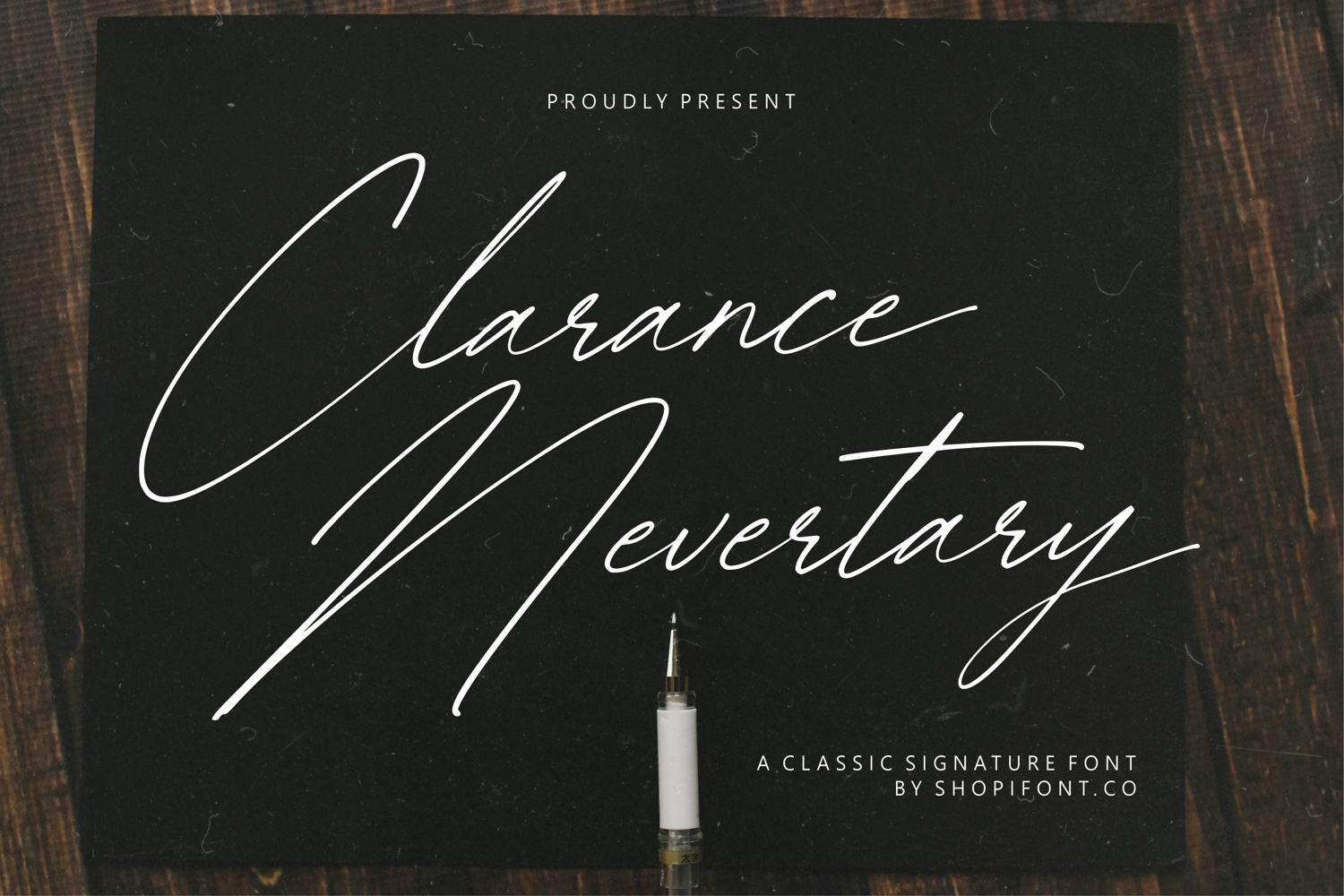
Clarance Nevertary
Proudly Present, Clarance Nevertary
Clarance Nevertary is A Classic Signature Font Perfect for wedding, product packaging, branding project, magazine, social media, or just used to express words above the background on your best project.